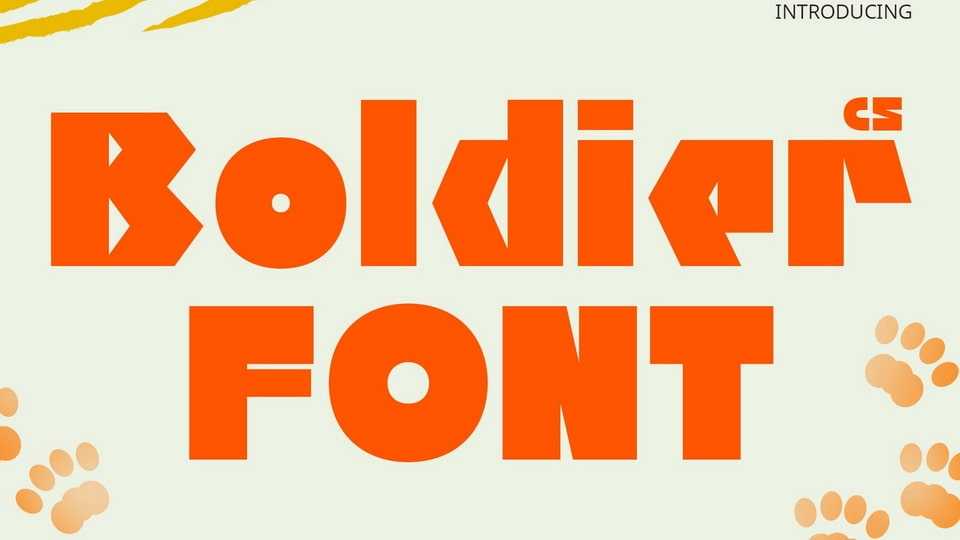
Download CS Boldier font, a bold display typeface with prominent thick lines, combining boldness and excitement. Perfect for projects emphasizing creativity and uniqueness.
Designer: Craft Supply Co